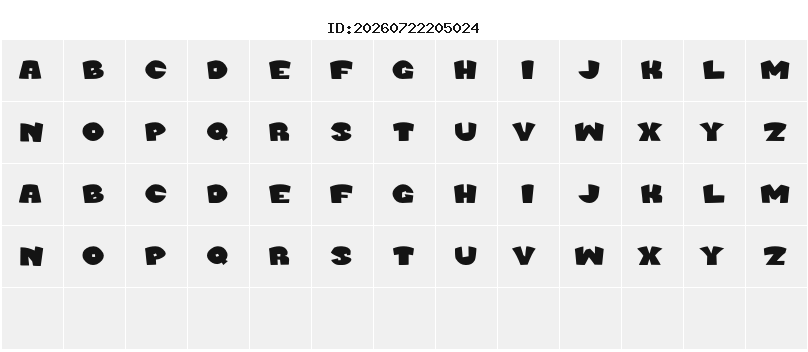
Murder Block Preview
• Font Name: Murder Block
• Full Font Name: Murder Block Bold
About Murder Block.otf
Murder Block.otf is a modern, elegant sans-serif font designed for ultimate readability and visual harmony. Perfect for branding, headlines, web design, and print materials.